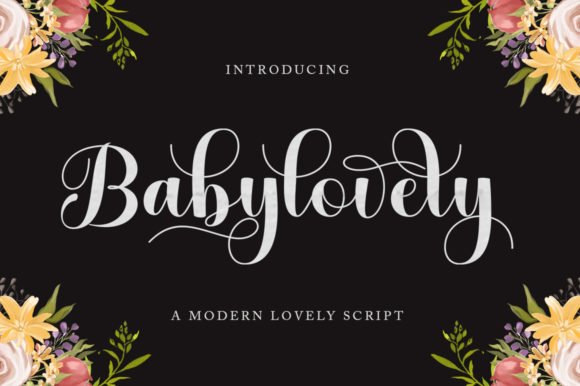
Introduction to Baby Lovely Script Font
Baby Lovely Script is a lovely and delicate script font that exudes elegance and class.
This font was particularly crafted for those who need a beautiful and refreshing look to their designs Baby Lovely Script is PUA encoded which means you can access all glyphs and swashes with ease.
Key Features of Baby Lovely Script Font
Why Choose Baby Lovely Script Font?
Baby Lovely Script Font offers exceptional quality and versatility, making it a valuable addition to your design toolkit. Whether you’re creating for personal projects or commercial use, Baby Lovely Script Font delivers professional results.